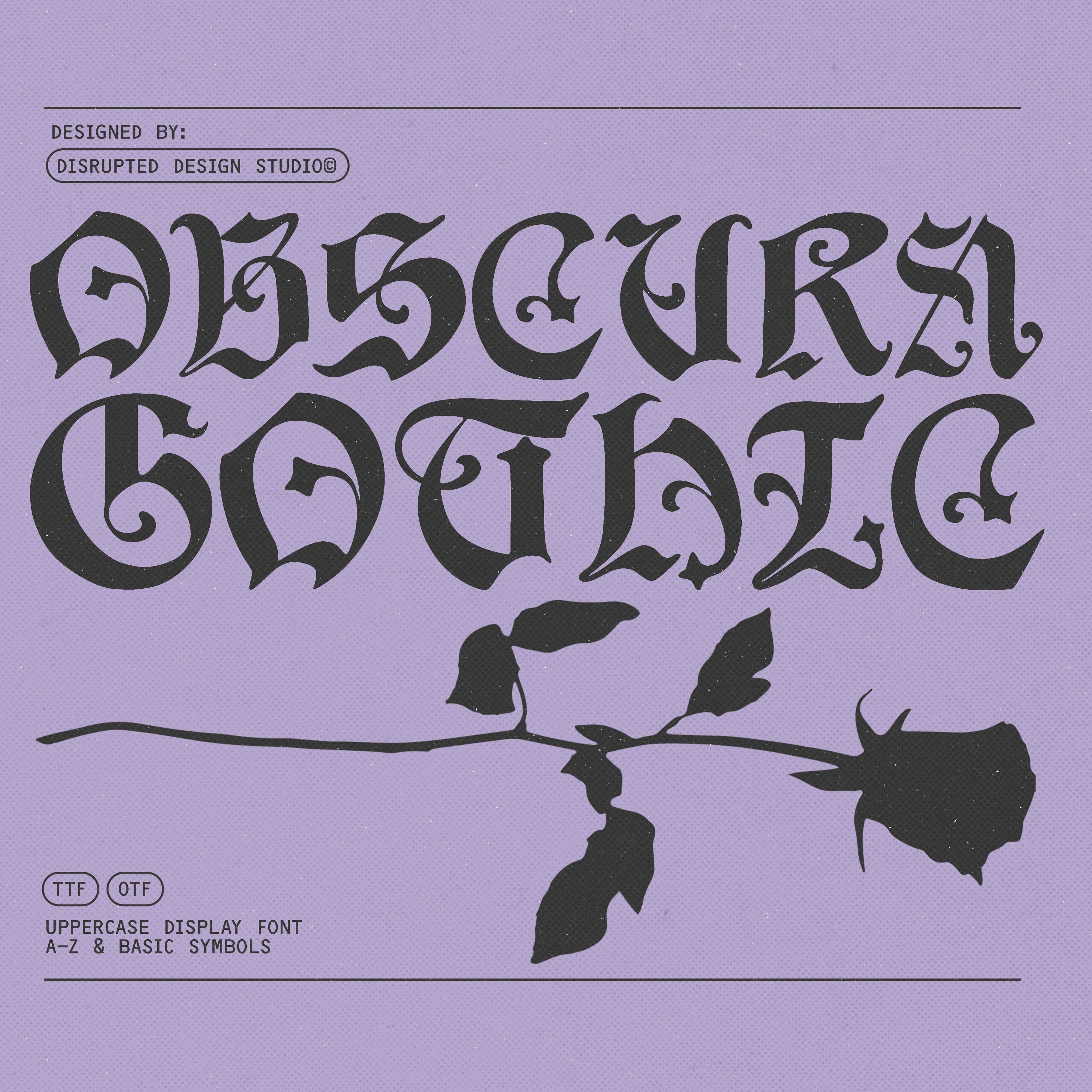
<p>Introducing <em>Obscura Gothic</em> — a dark gothic blackletter font with a mystical twist. Its heavy strokes, and flowing forms are perfect for crafting striking headlines, moody artwork, or anything that calls for a touch of the dark and ornate. </p>